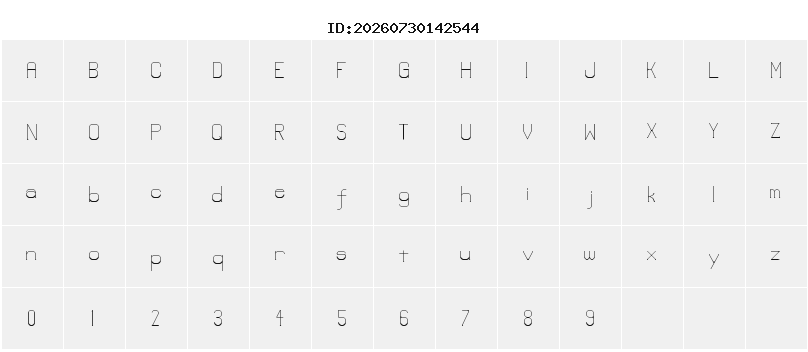
lower-lay Preview
• Font Name: lower-lay
• Font ID: FontStruct lower-lay
• Full Font Name: lower-lay Regular
• PostScript Name: lower-lay
• Character Count: 99
• Designer: thewraithofwolf
• Description: “lower-lay” was built with FontStruct
About lower-lay.ttf
lower-lay.ttf is a modern, elegant sans-serif font designed for ultimate readability and visual harmony. Perfect for branding, headlines, web design, and print materials.